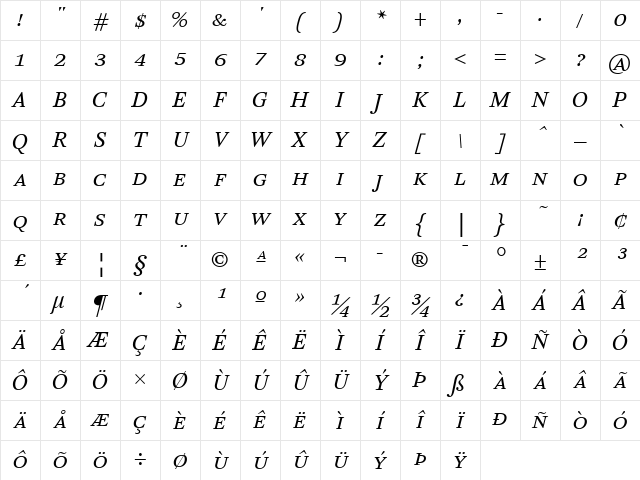
ArnhemSmallCaps-BlondItalic Regular
Designer: Fred Smeijers
Design Context for ArnhemSmallCaps-BlondItalic
ArnhemSmallCaps-BlondItalic is a composed and adaptable typeface that performs quietly and consistently across a wide range of design contexts. The slanted form adds forward momentum and visual energy.
Pro Tip: Use ArnhemSmallCaps-BlondItalic for emphasis, pull quotes, and subheadings where its slanted energy can add rhythm to the layout.